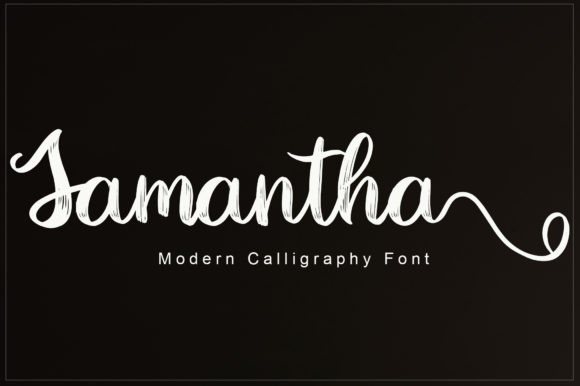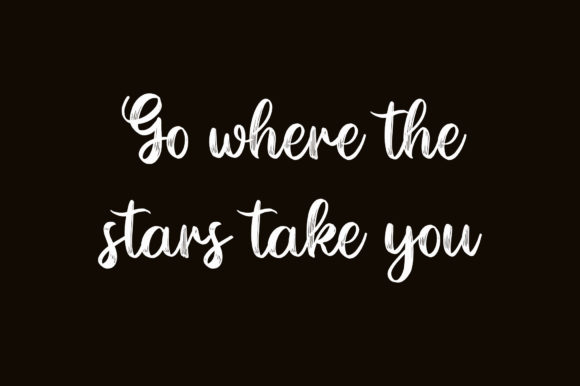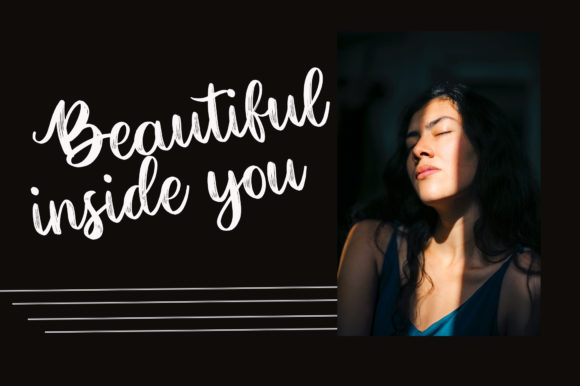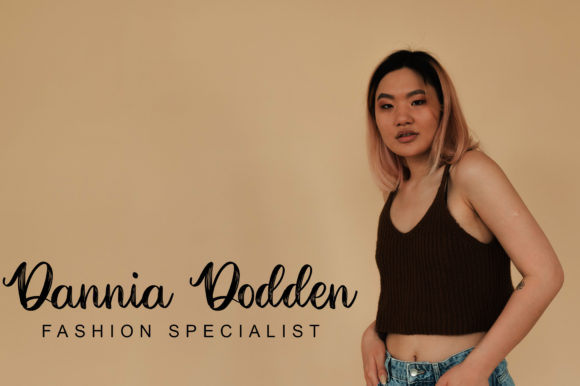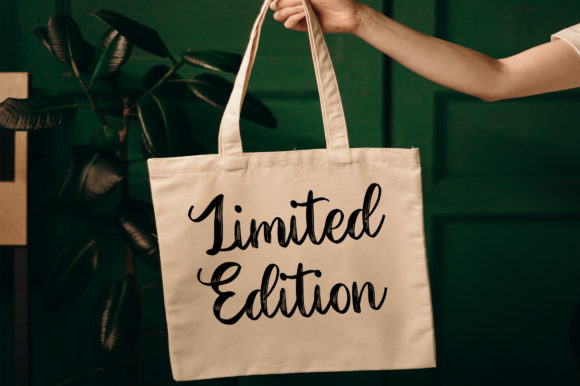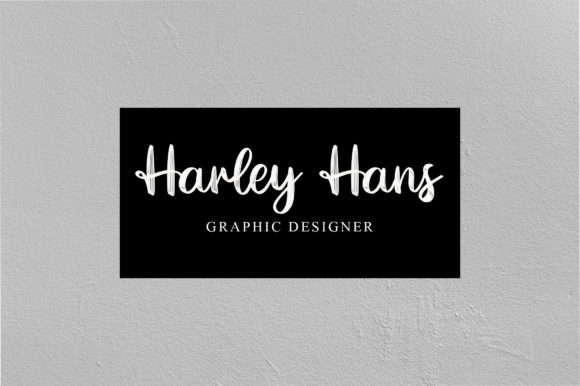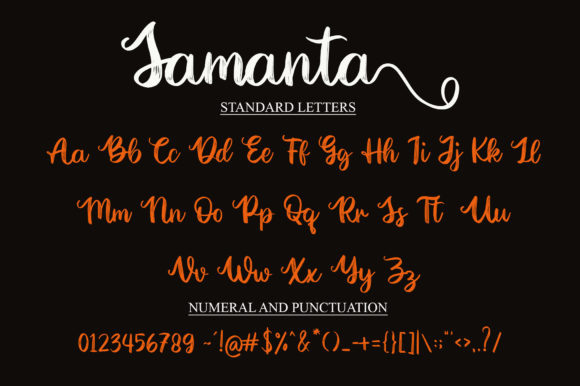
About Samantha Font
Samantha is an elegant brush handwritten font with a contemporary atmosphere and impeccable form, inspired by a timeless classic calligraphy. Not too thin and not too thick, balanced and varied, this font was designed to enhance the beauty of your projects.